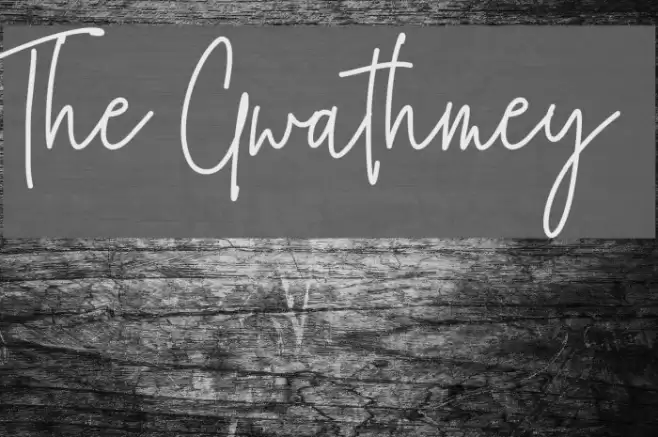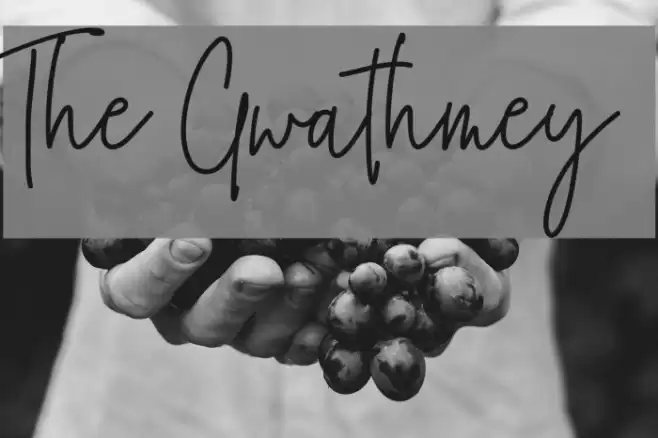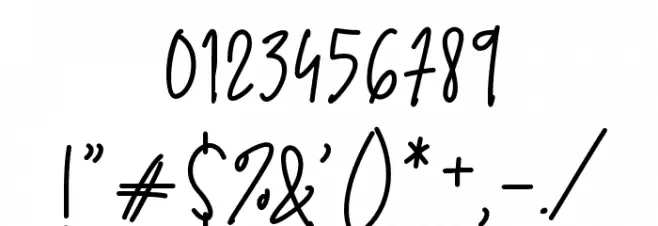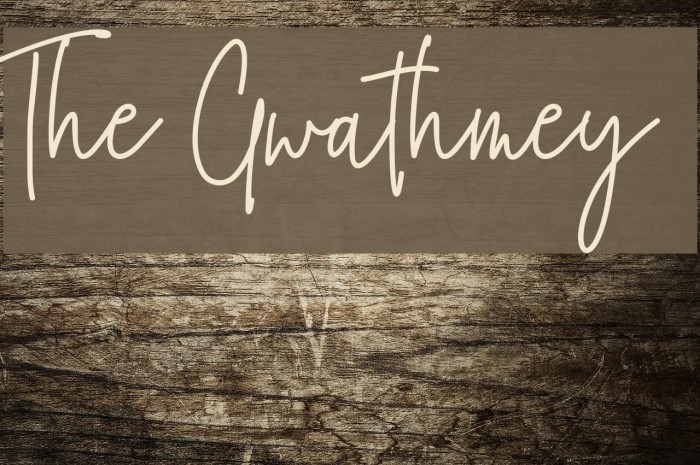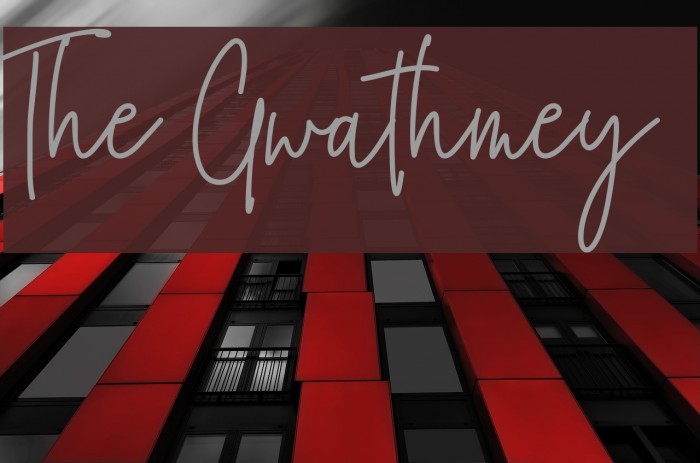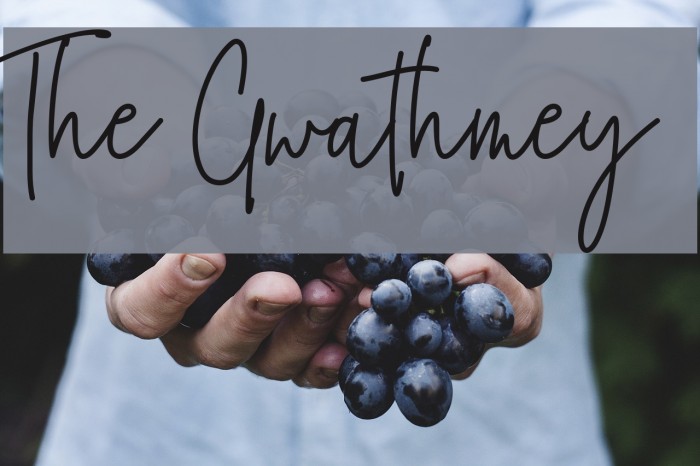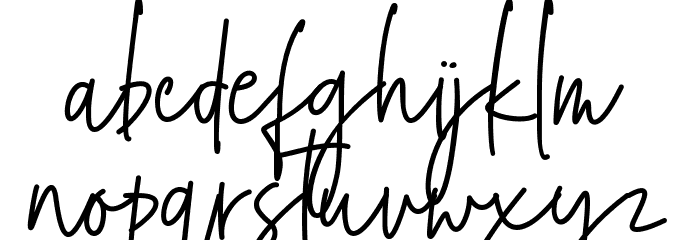
The Gwathmey Font
The Gwathmey Description
This font features a distinctive handwritten style with elongated, flowing strokes that give it a casual yet elegant appearance. The uppercase letters are tall and narrow, with a slight slant that adds a dynamic feel. The lowercase letters maintain a consistent style, with smooth curves and a natural flow. Numbers and special characters are crafted to match the overall aesthetic, ensuring a cohesive look. The font's playful and artistic nature makes it suitable for creative projects that require a personal touch.
A handwritten font with elongated strokes and a casual elegance from Uncategorized fonts.
- Proposed Projects: Ideal for invitations, greeting cards, personal branding, and creative projects that benefit from a handwritten touch.
- Overall Style: Casual, Artistic
- Use Case: Logos, Invitations, Greeting Cards